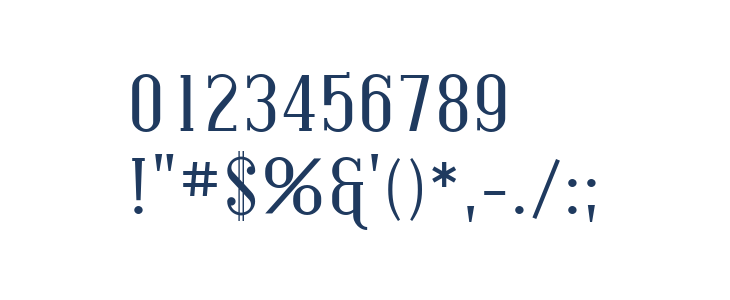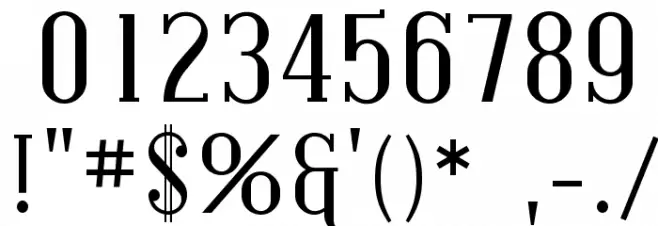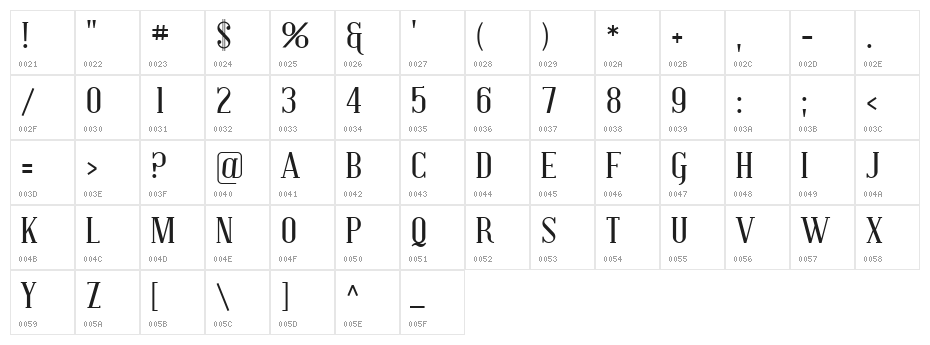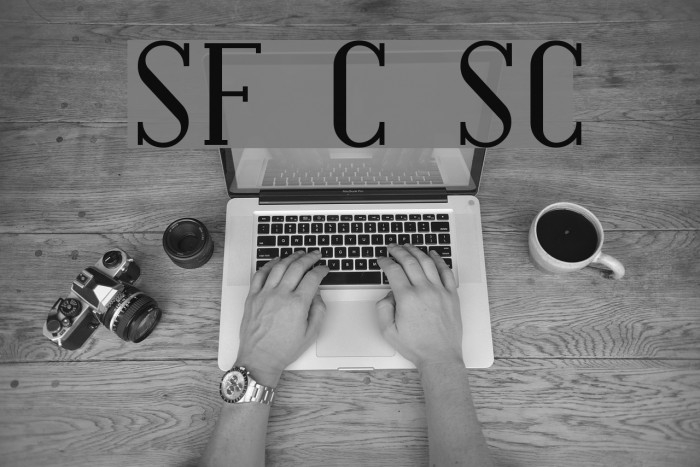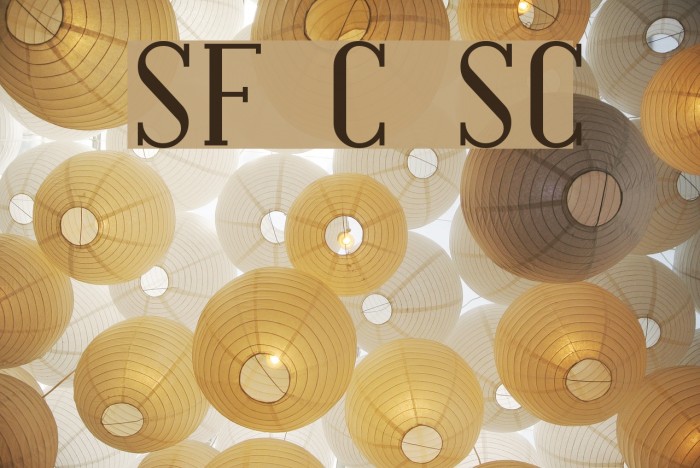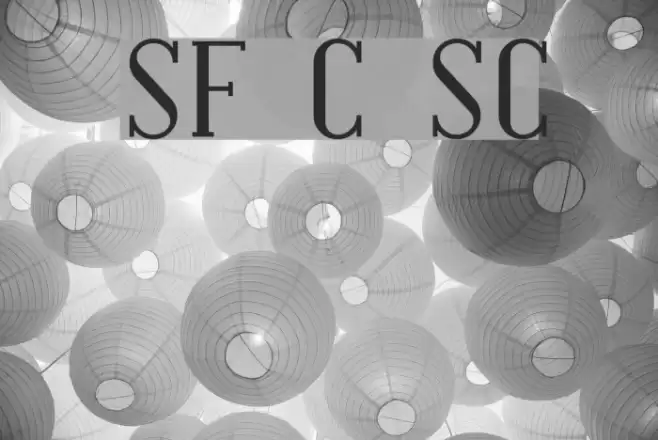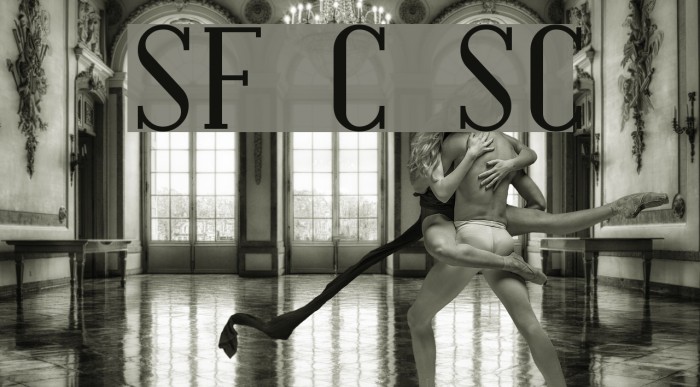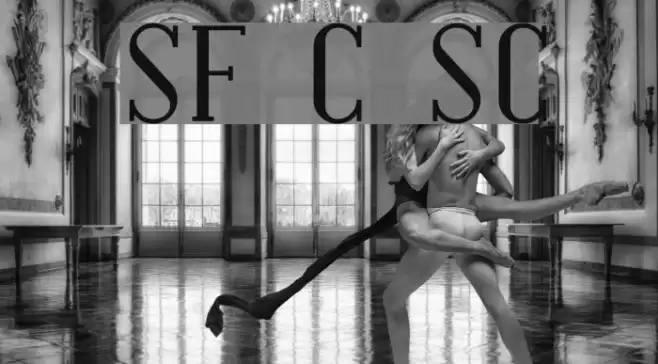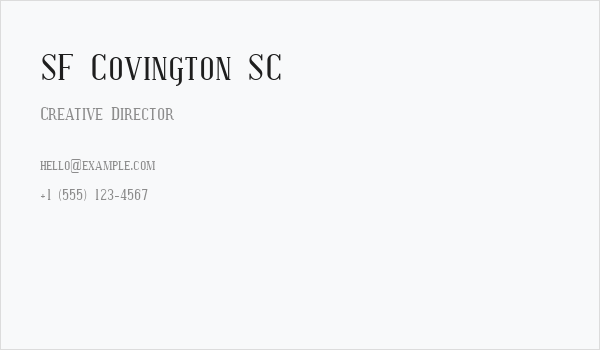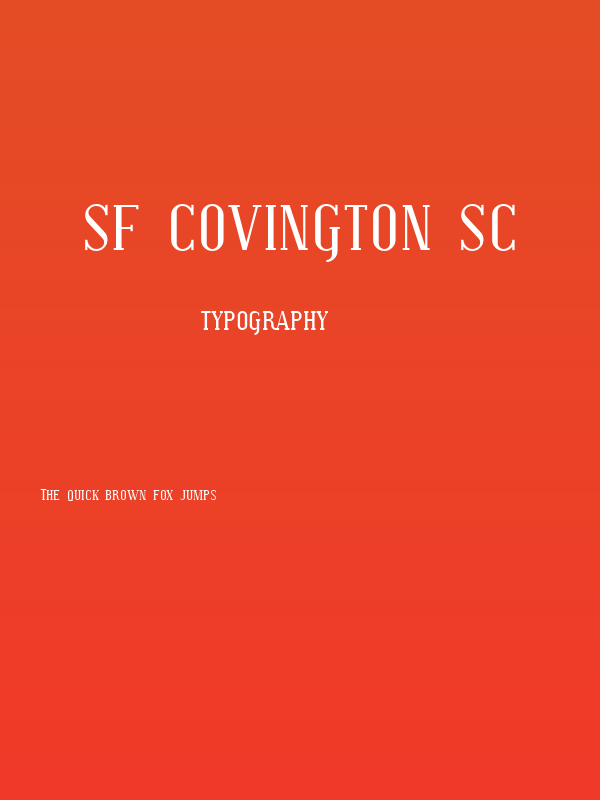
SF Covington SC Font
SF Covington SC Description
This font features a classic serif style with a modern twist, characterized by its elegant and refined appearance. The uppercase letters are tall and narrow, with sharp, angular serifs that add a touch of sophistication. The lowercase letters maintain a consistent style, with a slightly condensed form that enhances readability. The numerals are well-proportioned, aligning seamlessly with the overall aesthetic. Special characters are thoughtfully designed, maintaining the font's cohesive look. The font's balance of traditional serif elements with a contemporary edge makes it versatile for various design applications.